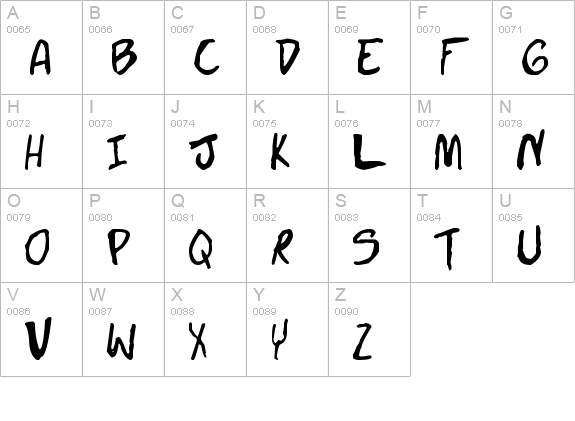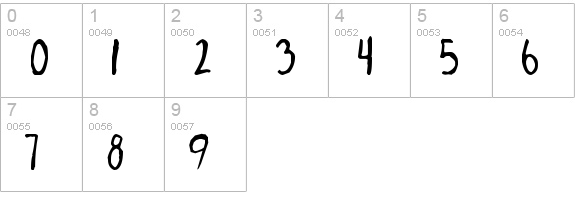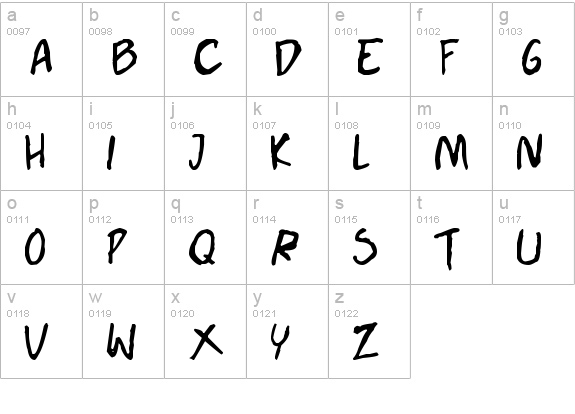
Doujinshi Font Details
Introducing the captivating Doujinshi font, a true gem in the world of typography. This beautifully designed typeface combines elegance with a touch of whimsy, making it the perfect choice for any creative project. With its unique and intricate letterforms, Doujinshi font adds a sense of artistic flair to any design, whether it be a logo, packaging, or even a book cover. One of the most remarkable aspects of Doujinshi font is that it is freely available to download at FontsMarket.com. That's right, this stunning font can be yours without any cost, allowing you to unleash your creativity without breaking the bank. FontsMarket.com offers an extensive library of fonts, and Doujinshi font is just one of the many amazing options available to you. Not only is Doujinshi font visually captivating, but it also boasts exceptional readability, ensuring that your message is conveyed with clarity and impact. The carefully crafted letterforms are meticulously balanced, creating a harmonious flow that guides the reader's eye effortlessly. Whether used for headlines or body text, Doujinshi font guarantees a seamless reading experience. Furthermore, Doujinshi font is incredibly versatile, adapting effortlessly to various design styles and themes. Its timeless appeal makes it suitable for both modern and vintage-inspired projects, adding a touch of sophistication and charm. The wide range of glyphs and ligatures included in this font allows for endless creative possibilities, making it a must-have for any designer's toolkit. In summary, Doujinshi font is a breathtaking typeface that embodies both elegance and creativity. With its freely available download at FontsMarket.com, it offers a rare opportunity to enhance your designs without any financial constraints. So why wait? Unlock the full potential of your projects with the captivating Doujinshi font today.